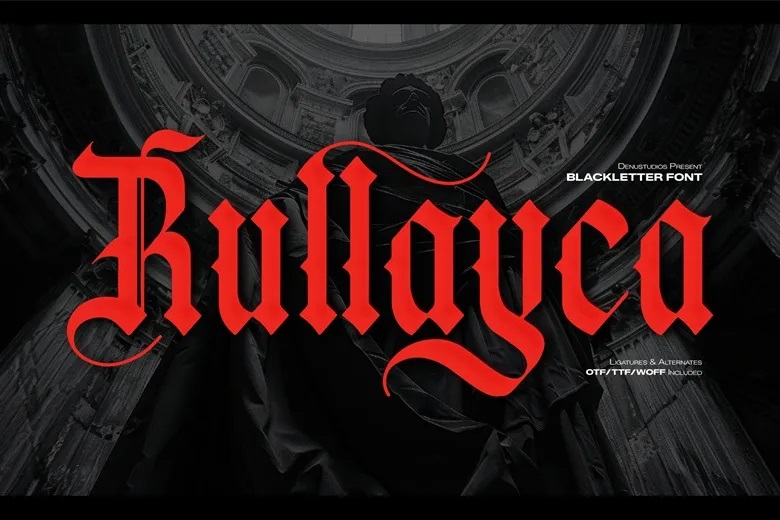
Rullayca Font
Rullayca is a premium blackletter font. It combines classic gothic calligraphy with modern, flowing lines. The bold, blood-red letters stand out on dark cathedral photos, moody statues, or grunge backgrounds.
This makes it a great fit for alternative streetwear, luxury drinks, metal band logos, tattoo shop signs, and dramatic book covers.
Rullayca Blackletter Font